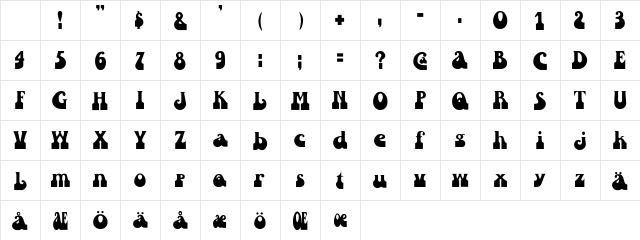
Complete Pinwinn Regular glyph index. Displaying only characters natively supported by Pinwinn Regular font.
Pinwinn is a composed and adaptable typeface that performs quietly and consistently across a wide range of design contexts.